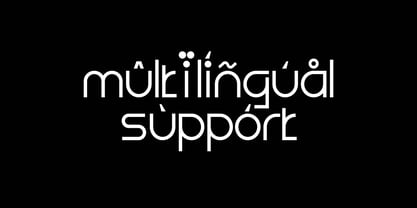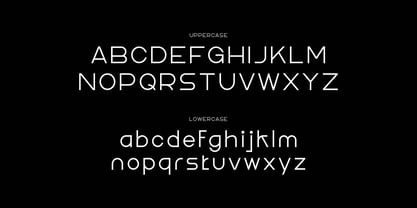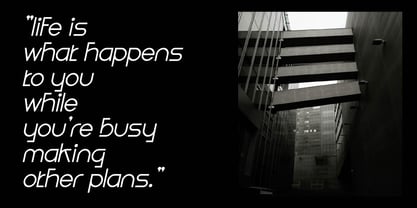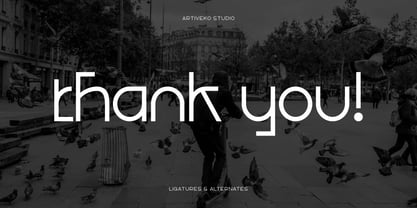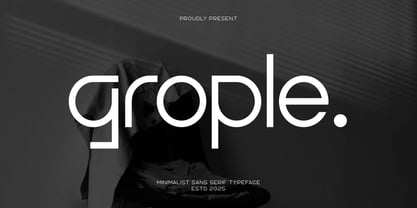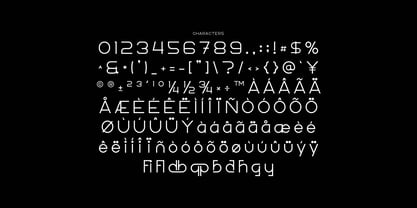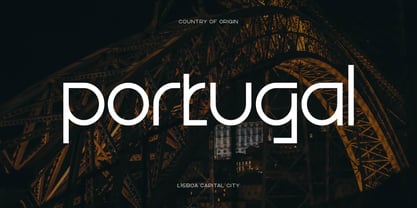
Grople
by Artiveko
The Grople Font Family was designed by Iwan Alwan and published by Artiveko. Grople contains 2 styles and family package options. More about this family
Grople is a sleek and contemporary sans serif font that embodies the essence of minimalism. With clean lines, balanced shapes, and refined spacing, Grople offers a sense of modern simplicity perfect for branding, logo design, packaging, magazines, and digital interfaces. Its geometric foundation creates a timeless aesthetic that remains versatile across different visual contexts — from bold headlines to subtle body text. Designed to convey clarity and professionalism, Grople fits perfectly into modern brands, creative studios, and editorial layouts seeking an elegant yet approachable tone. The font includes uppercase and lowercase letters, numerals, punctuation, multilingual support, and stylistic alternates for creative flexibility. Bring a refined modern touch to your next project with Grople, a minimalist sans serif typeface built for clarity, balance, and timeless sophistication.
Designers: Iwan Alwan
Foundry: Artiveko
Artiveko is a font design team based in Indonesia, comprised of several talented font designers who commenced their careers in the font design industry in 2020. With a dedicated focus on crafting fonts, the team members bring their collective expertise and passion to every project they undertake. Situated in Indonesia, Artiveko draws inspiration from the vibrant cultural landscape of the region, infusing their creations with unique flavors and aesthetics.The team's font collection encompasses a diverse range of styles, including serif, sans serif, handwritten, and script typefaces. Each typeface is meticulously crafted to meet the demands of modern design while offering versatility and functionality across various applications. Whether it's the classic elegance of serif fonts, the contemporary appeal of sans serif designs, the personal touch of handwritten scripts, or the expressive flourishes of script fonts, Artiveko ensures that every font reflects their dedication to quality and innovation.Artiveko's fonts have garnered recognition and acclaim, with their works being featured on prominent social media platforms like Creative Market. Through these platforms, the team has been able to connect with a global audience of designers and typographers, further amplifying their reach and influence in the industry. Their fonts are celebrated for their impeccable craftsmanship, attention to detail, and ability to elevate design projects with style and sophistication.As Artiveko continues to evolve and expand its font collection, the team remains committed to pushing the boundaries of typography and setting new standards of excellence. With a relentless focus on creativity, innovation, and collaboration, Artiveko strives to inspire and empower designers around the world with their distinctive and versatile font designs.